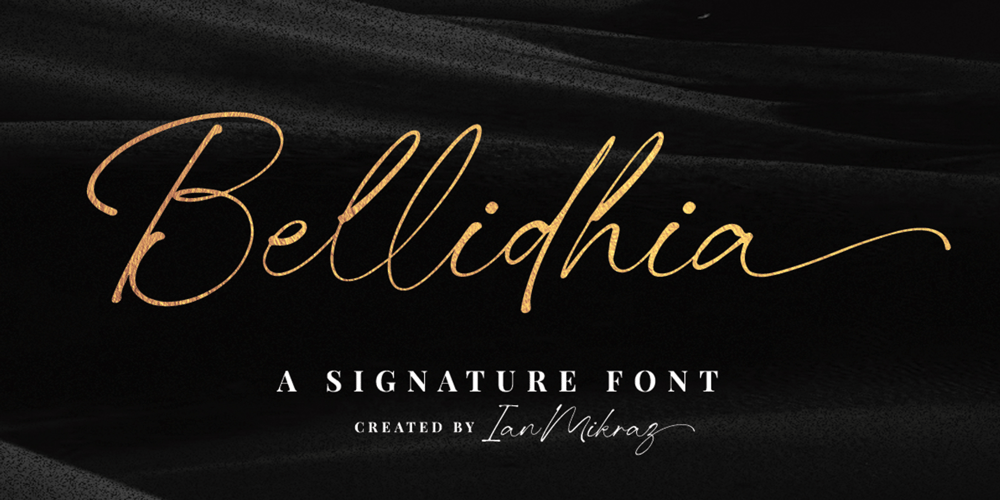
Bellidhia Font Family was designed by Ian Mikraz and published by IanMikraz Studio. Bellidhia contains 1 styles and family package options. Embrace the art of effortless charm and add a delightful touch to your designs mesmerizing handwriting font crafted with attention to detail. With its graceful curves and authentic strokes effortlessly brings the warmth of handwritten messages to your digital world. Whether you’re creating dreamy wedding invitations, captivating social media posts or greeting cards. This is your go-to font to infuse a personal, yet professional, touch into every project.